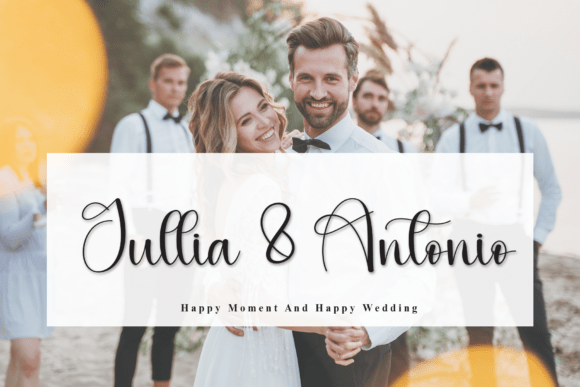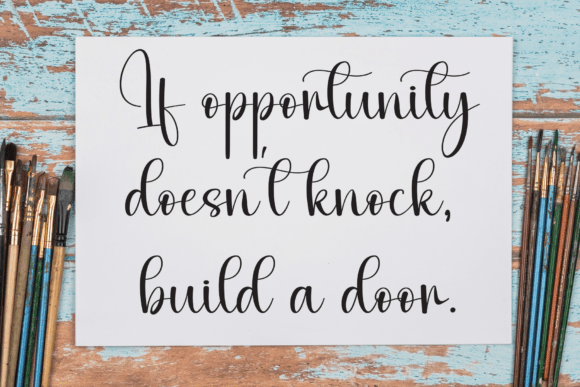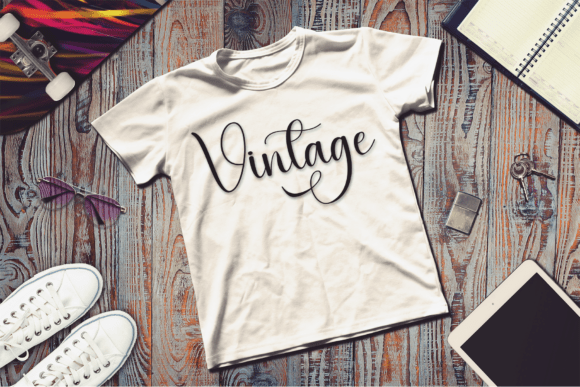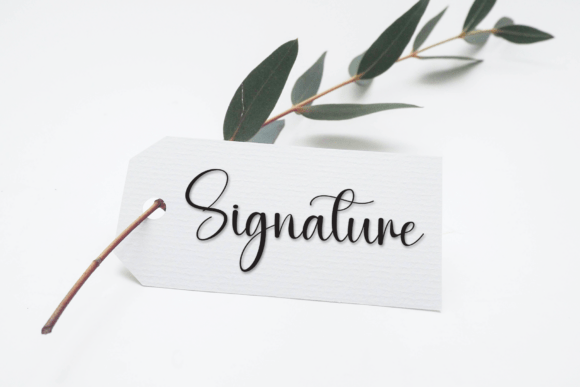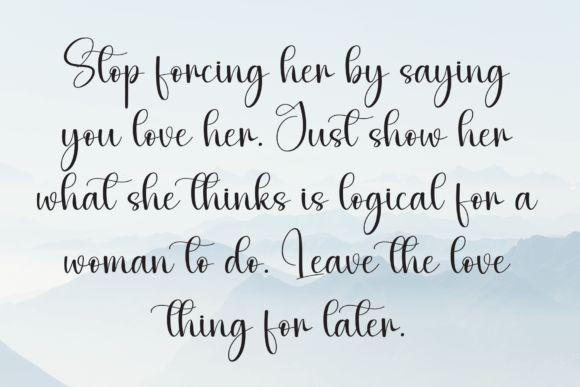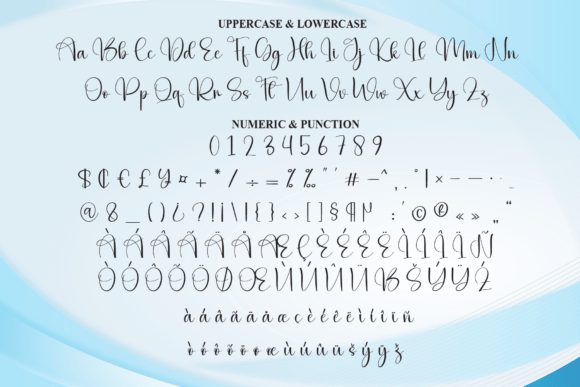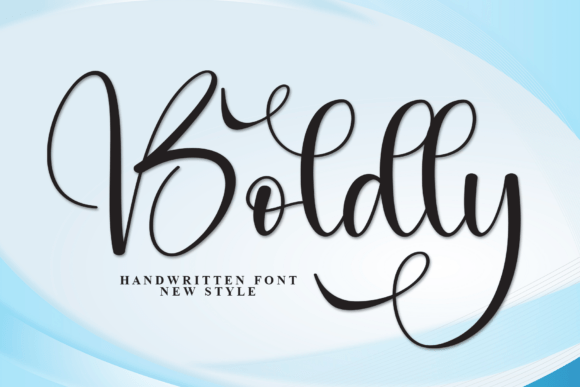
Introducing Boldly Font: Elevate Your Designs with Elegance and Modern Charm
In the world of typography, a font can make or break a design. For designers and crafters seeking to add a touch of sophistication and personality to their work, Boldly Font is an exceptional choice. This stylish script font exudes elegance and modern charm, making it perfect for a wide range of applications, from logos and invitations to packaging and social media graphics.
The Beauty of Hand-Drawn Calligraphy with a Contemporary Edge
Boldly Font captures the beauty of hand-drawn calligraphy with a contemporary edge. Its fluid strokes and graceful curves evoke the feeling of traditional calligraphy, while its carefully balanced letterforms bring a modern and refined touch. This unique blend of classic and modern elements makes Boldly Font an excellent choice for designers looking to add a touch of elegance to their work.
Key Features of Boldly Font
- Fluid Strokes: Boldly Font features fluid strokes that give it a natural, hand-drawn feel. This characteristic makes it perfect for creating designs that require a personal touch.
- Graceful Curves: The font’s graceful curves add a touch of sophistication and elegance to any design. These curves also help to create a sense of flow and continuity.
- Carefully Balanced Letterforms: Each letterform in Boldly Font has been carefully crafted to ensure balance and harmony. This attention to detail makes the font highly legible and visually appealing.
- Versatility: Boldly Font is incredibly versatile, making it suitable for a wide range of applications, from logos and branding to invitations, packaging, and social media graphics.
Applications of Boldly Font
Boldly Font is an excellent choice for various design projects, including:
- Logos and Branding: Create a lasting impression with a logo that exudes elegance and sophistication. Boldly Font is perfect for businesses and brands looking to establish a refined and modern image.
- Invitations: Add a touch of luxury to your invitations, whether it’s for a wedding, birthday party, or corporate event. Boldly Font’s elegant and refined feel makes it perfect for formal and informal events.
- Packaging: Elevate your product packaging with Boldly Font. Its modern charm and sophistication make it an excellent choice for luxury brands and products.
- Social Media Graphics: Create visually appealing social media graphics that stand out from the crowd. Boldly Font’s versatility and elegance make it perfect for various social media platforms.
Why Choose Boldly Font?
With so many fonts available, why choose Boldly Font? Here are a few reasons:
- Unique and Distinctive: Boldly Font’s unique blend of traditional and modern elements makes it stand out from other fonts.
- Elegant and Sophisticated: The font’s elegant and sophisticated feel makes it perfect for designers looking to add a touch of luxury to their work.
- Versatile: Boldly Font’s versatility makes it suitable for various design projects, from logos and branding to social media graphics.
- Easy to Read: The font’s carefully balanced letterforms make it highly legible, even at small sizes.
Boldly Font is an exceptional choice for designers and crafters seeking to add a touch of elegance and modern charm to their work. Its unique blend of traditional and modern elements, fluid strokes, and carefully balanced letterforms make it perfect for various design projects. Whether you’re creating a logo, invitation, packaging, or social media graphics, Boldly Font is sure to deliver both visual appeal and versatility.